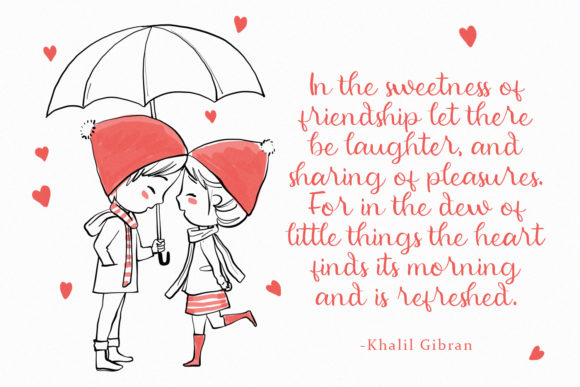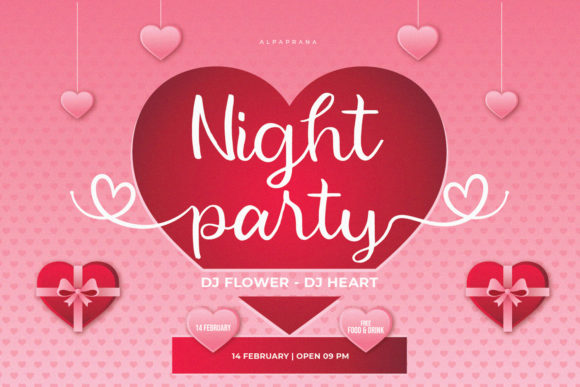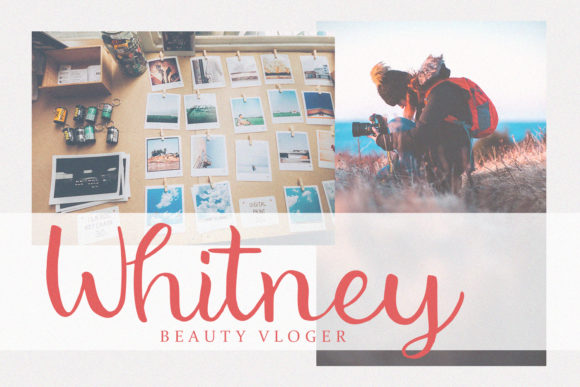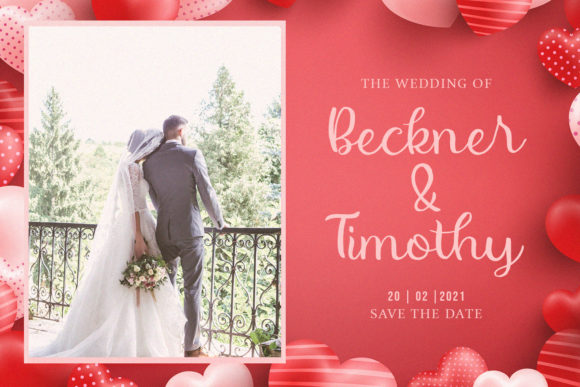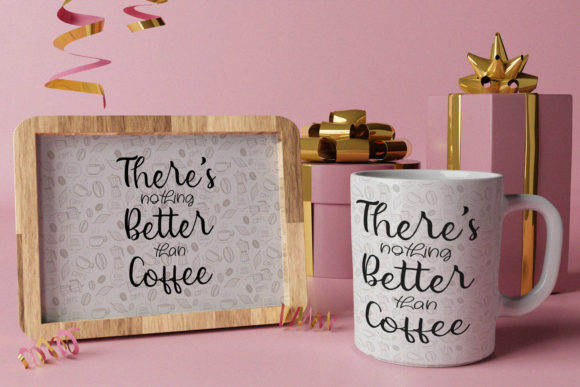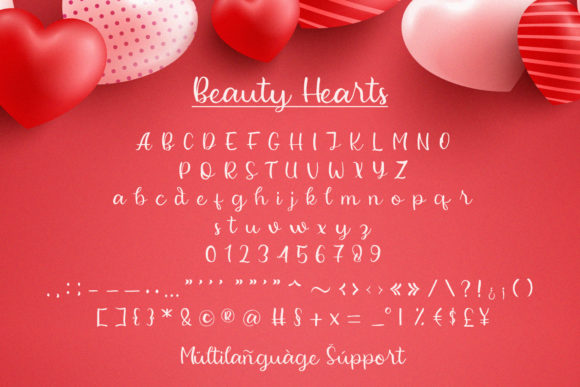
Introduction to Beauty Hearts Font
Beauty Hearts is a stunning and cute handwritten font with an authentic feel.
It will be perfectly used for branding, logo Designs, clothing, posters and much more This font is PUA encoded which means you can access all of the glyphs and swashes with ease.
Key Features of Beauty Hearts Font
Why Choose Beauty Hearts Font?
Beauty Hearts Font offers exceptional quality and versatility, making it a valuable addition to your design toolkit. Whether you’re creating for personal projects or commercial use, Beauty Hearts Font delivers professional results.